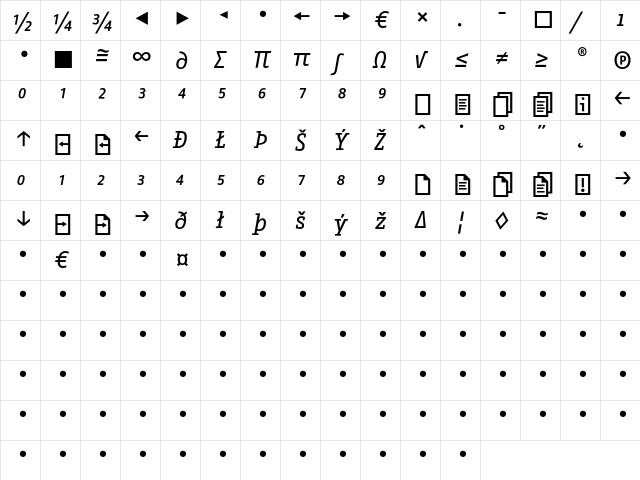
Fago Office Serif Regular Exp Italic
Design Context for Fago Office Serif Typeface
Fago Office Serif carries the refined structure of traditional serif typography, with bracketed terminals and considered proportions that communicate credibility and craft. The dynamic lean of this cut emphasises speed and emphasis in any layout.